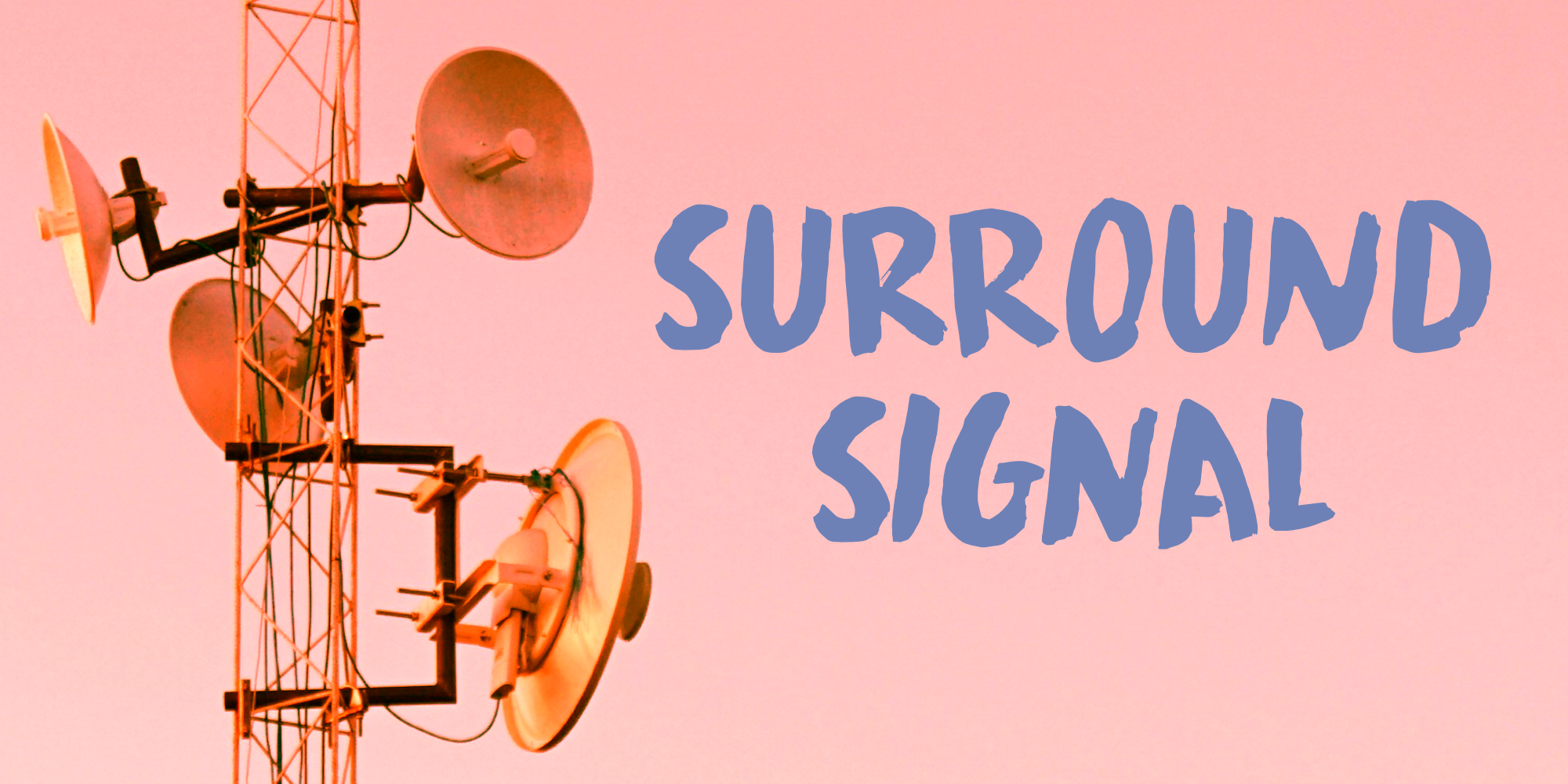
I am renovating a thirties house (an ongoing project of sorts…). Because it is quite a big house, I have put in ‘smart’ home appliances, like infrared heaters, motion controlled lighting and smart sockets. Now I don’t need to tour the house in order to shut everything off; I can just use the app on my phone! It is quite handy, but it did make me realise how much of my daily life depended on my mobile phone. I also realised that I was surrounded by signals and radiation – which is probably not how nature intended it…
Surround Signal is a beautiful handmade brush font (yes, yes, using my Chinese ink…). It comes with extensive language support and a set of alternates for the lower case glyphs.